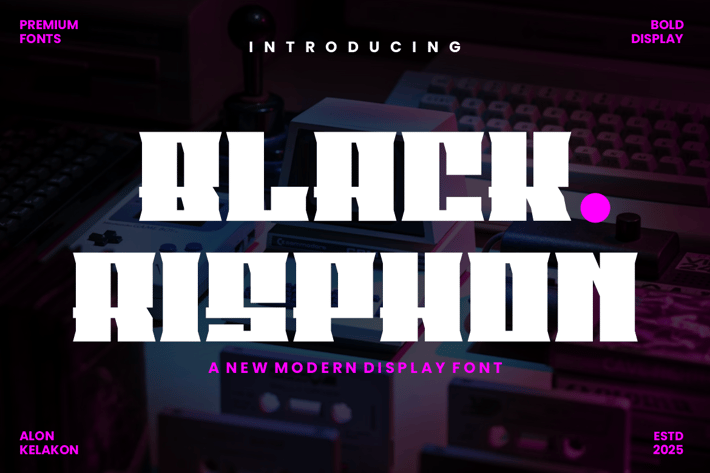
Black Risphon Font
Black Risphon - Bold Display Typeface is a powerful and modern sans-serif font designed to make a statement. Its bold, commanding presence and sharp serifs are perfect for projects that need to convey strength, authority, and an edgy aesthetic. This all-caps font is ideal for striking headlines, logos, posters, and branding that demands attention.
Key Features:
+ Uppercase letters only: Strong and impactful.
+ Modern sans-serif design: A clean, contemporary feel.
+ Sharp, subtle serifs: Adds a unique, aggressive edge.
+ Versatile: Perfect for titles, logos, product packaging, and sports branding.
Give your next project a powerful voice with Black Asphon.
Key Features:
+ Uppercase letters only: Strong and impactful.
+ Modern sans-serif design: A clean, contemporary feel.
+ Sharp, subtle serifs: Adds a unique, aggressive edge.
+ Versatile: Perfect for titles, logos, product packaging, and sports branding.
Give your next project a powerful voice with Black Asphon.